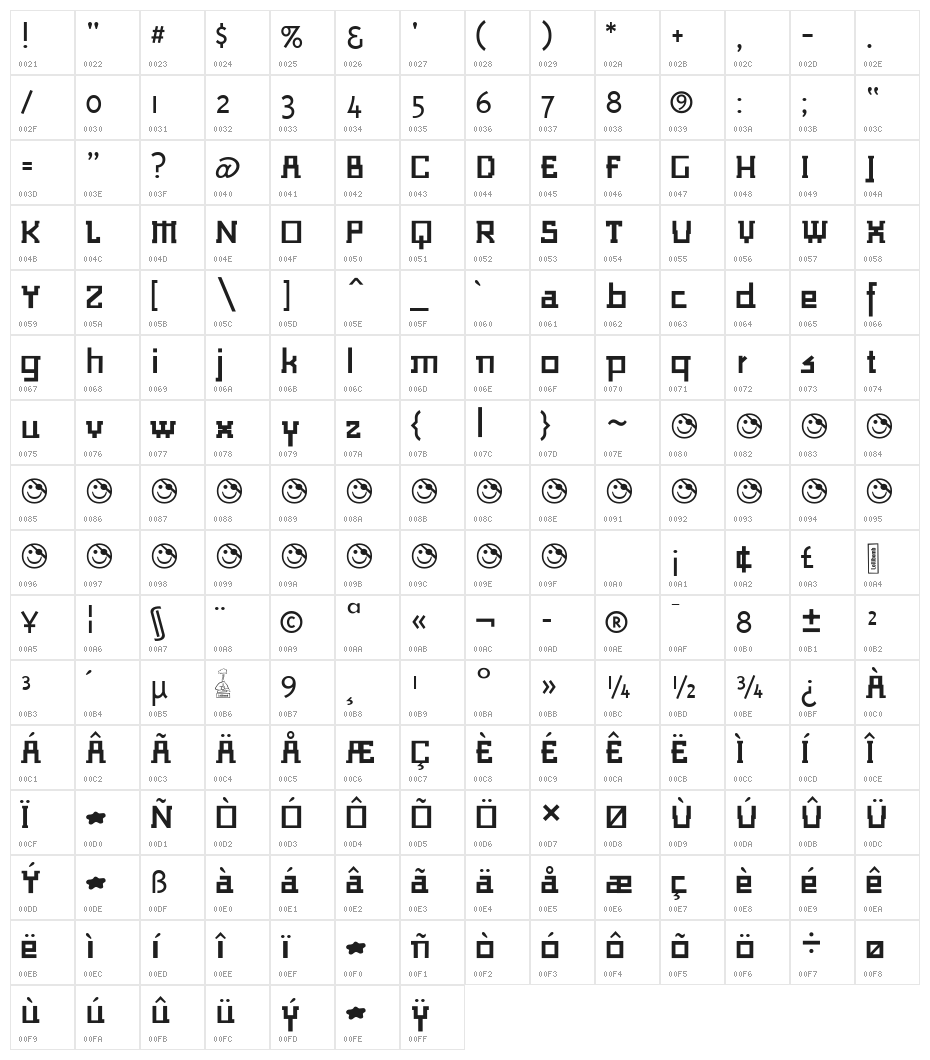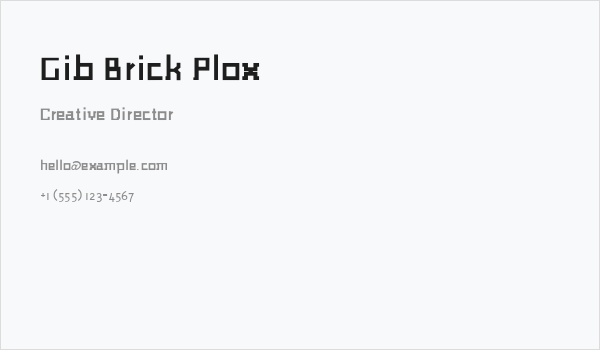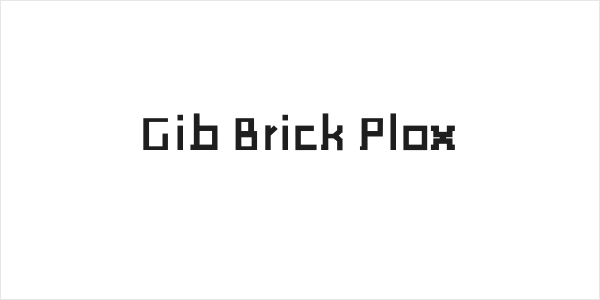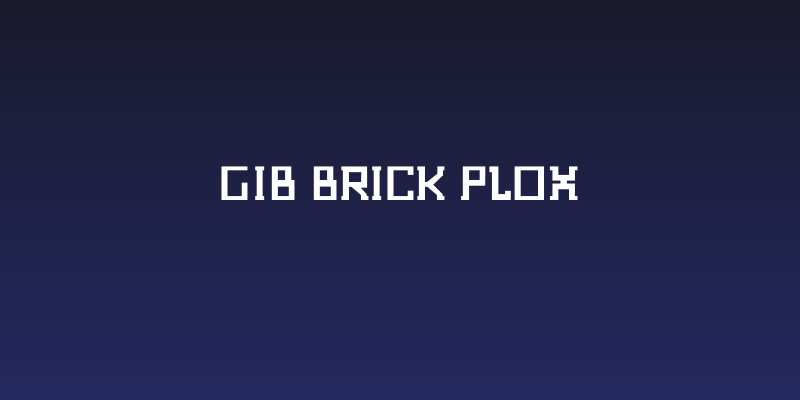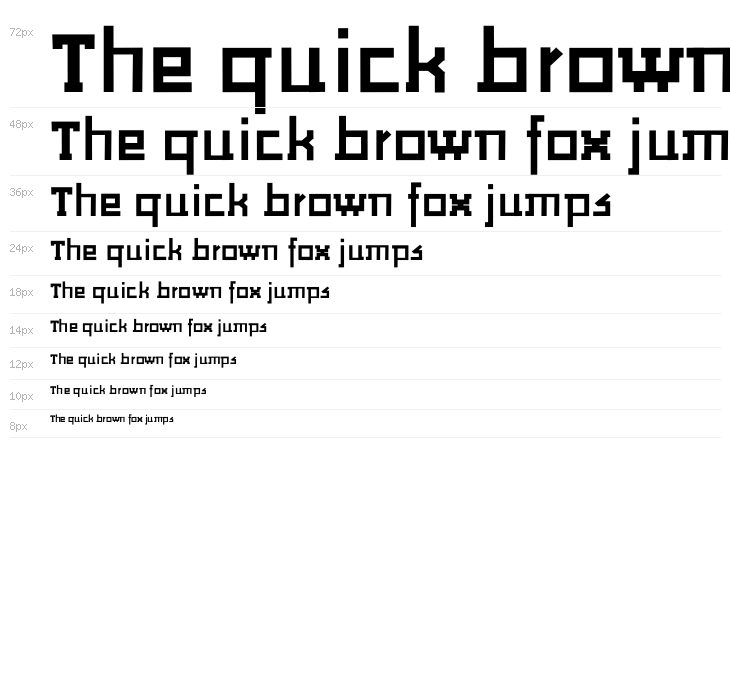
Gib Brick Plox Font
Gib Brick Plox Description
This font features a bold, geometric design with a blocky and pixelated appearance. The characters are constructed with straight lines and sharp angles, giving it a digital, retro feel reminiscent of early computer graphics or video game typography. The uppercase and lowercase letters maintain a consistent height, contributing to a uniform look. The numerals and special characters follow the same design principles, ensuring a cohesive style across all glyphs. The font's distinct, angular form makes it highly legible and eye-catching, suitable for projects that require a strong visual impact.
| Overall Style | Retro, Digital |
| Proposed Projects | Ideal for video game designs, tech-themed posters, digital art, or any project needing a retro digital aesthetic. |